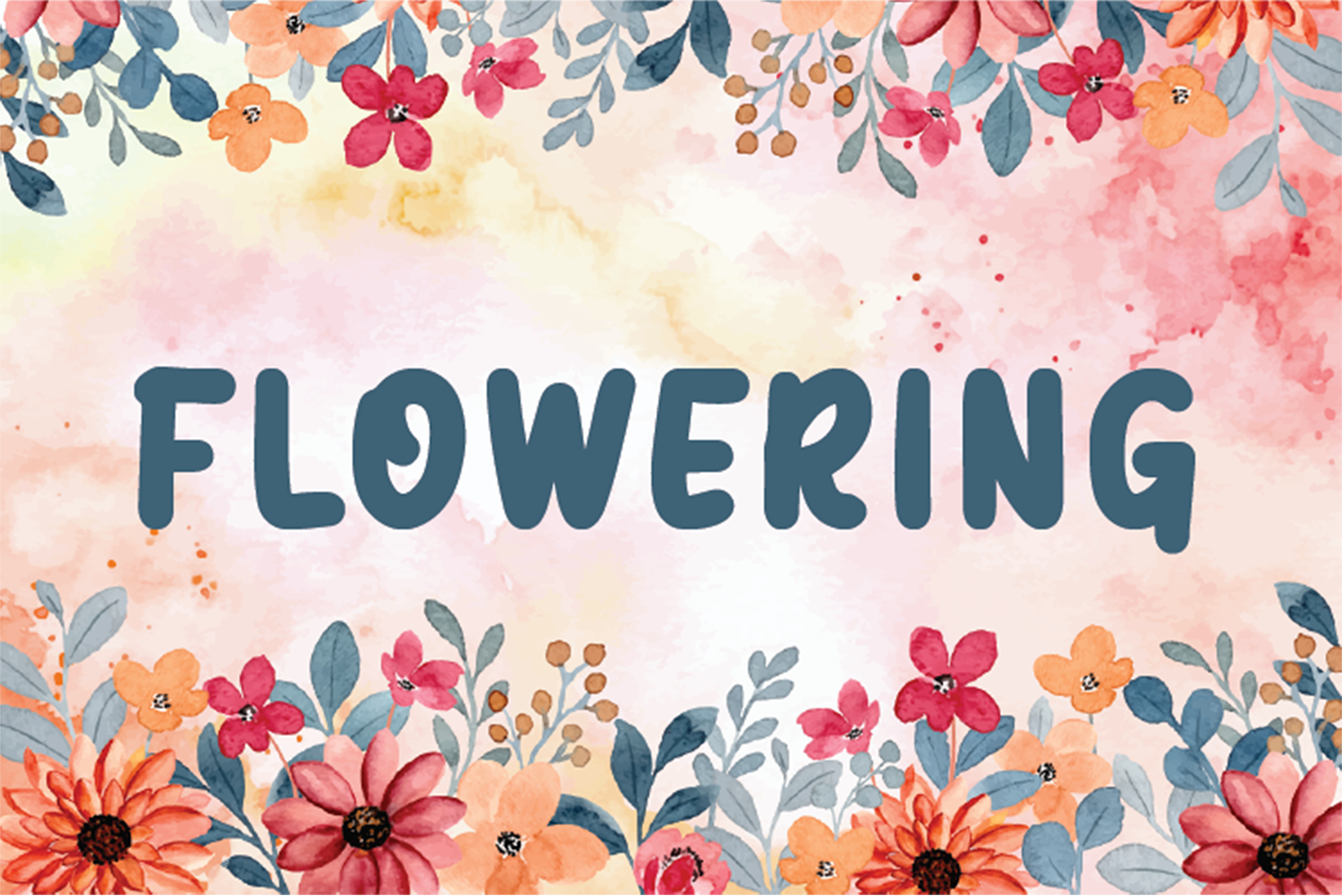
Flowering Free Font
Flowering Free Font is a beautiful handwritten font that simulates detailed brush writing and is very suitable for creating various design projects that require a scripted font. These can be posters, invitations, cards, branding, flyer prints, and more. If you wish to access more features and use them for commercial work please buy the full version.
Author: Hanna Bie